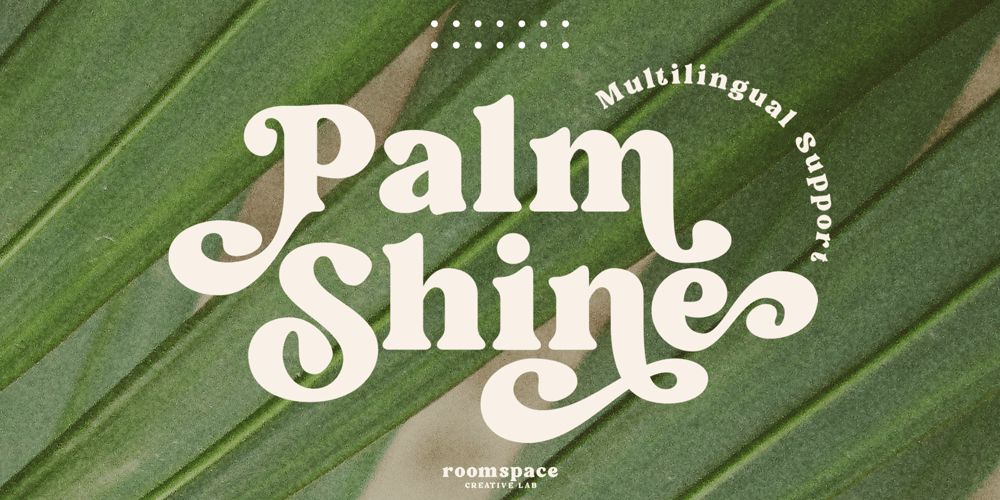
Palm Shine Font Family was designed by Bakhrudin Ja’far and published by Jafar07. Palm Shine contains 2 styles and family package options. Palm Shine is a beautiful and versatile font with a retro serif design that can be used in many different ways. Its elegant lines and modern look will make your designs stand out while maintaining a classic, timeless feel. It’s also extremely versatile – perfect for logos, boho and groovy designs, and even silhouette art and more.